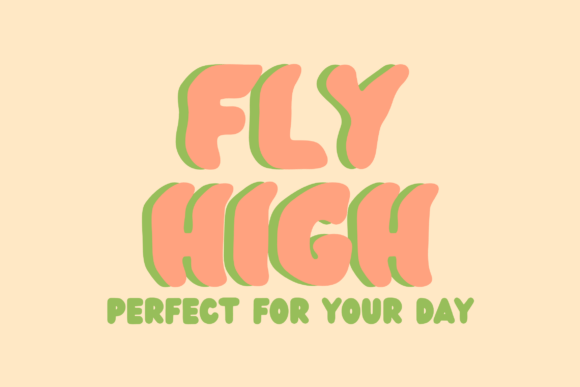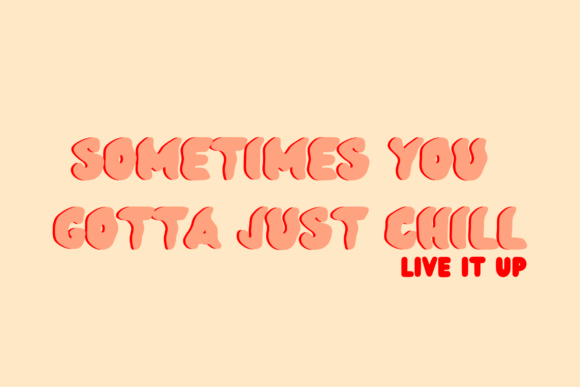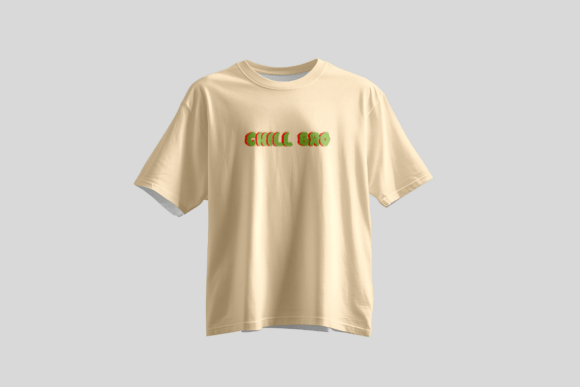
Bubble Wavy Font
Immerse yourself in the creatively crafted world of Bubble Wavy Font, a lively, dynamic typeface that promises to infuse energy in every word penned. With its round, bubbly letterforms and unique undulating appeal, this font perfectly encapsulates the spirit of playfulness. It’s a magical tool for every designer, lending itself beautifully to stunning posters, eye-catching branding, captivating social media graphics, and delightful children’s books. The synergy of smooth curves and groovy waves makes Bubble Wavy Font a standout addition to any creative project. Resonating a retro soul, a whimsical charm, or a modern vibe, it’s a typeface designed to infuse text with joy, vibrancy, and fluidity. Indulge in Bubble Wavy Font to make your designs bubble with life!